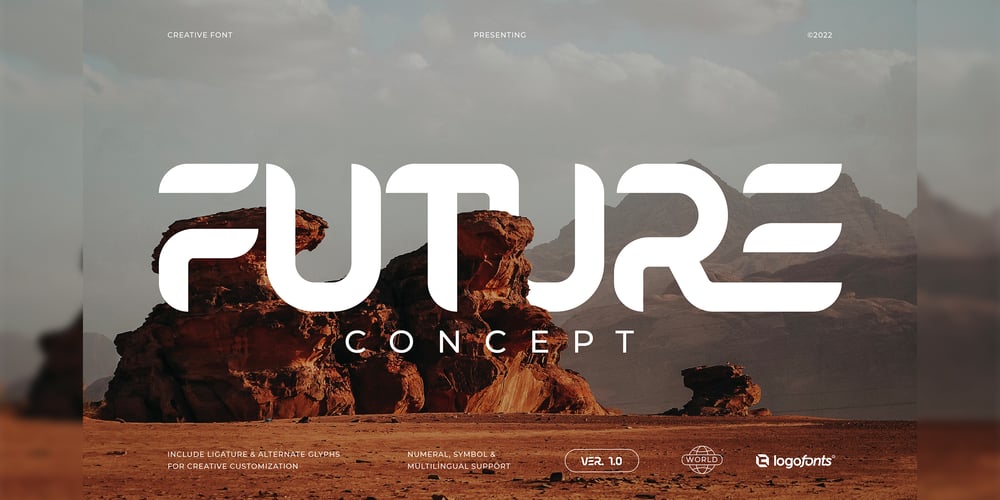
Future Concept Font Family was designed by Anna Safitri and published by Logofonts. Future Concept contains 1 styles and family package options. Future Concept is Sans Serif fonts inspired by future design concept great for product logo, technology, game, design, space concept, poster, headline, card logo, web, magazine, packaging, stationery and much more. Easily creates your own logo type with fonts. Future Concept has an Open Type feature to access a large selection of unique alternative letters and many ligatures to make it easier for you to create.Future Concept can be accessed perfectly on design applications such as Adobe Illustrator, Adobe Photoshop, Corel Draw, Affinity Designer but does not rule out the possibility that it can also be accessed using web-based applications such as kittl, canva, artboard studio and others.